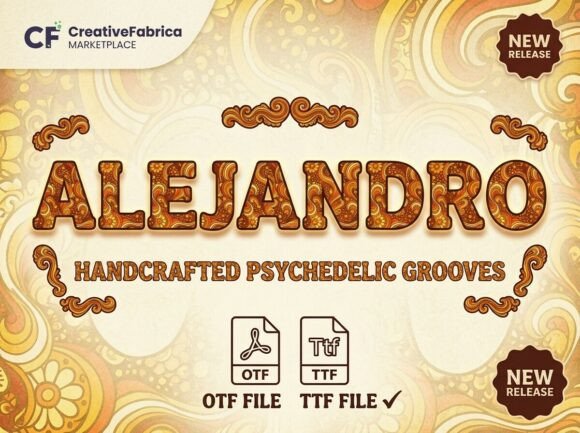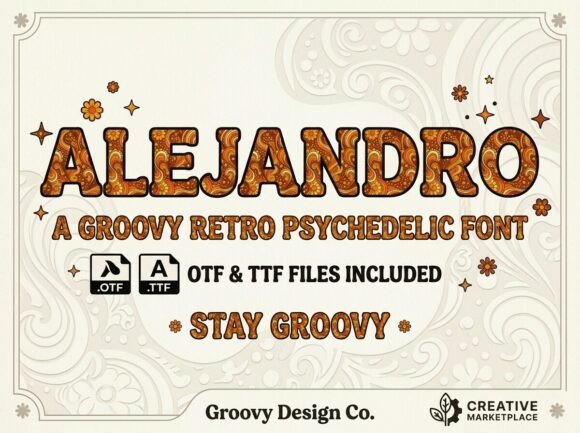
Introducing Alejandro: The Ultimate Retro Psychedelic Font
Step back into the vibrant energy of the late 1960s and 70s with Alejandro, a groovy retro psychedelic font from Groovy Design Co. This high-impact display typeface is the perfect choice for designers and crafters looking to add a touch of nostalgia and bohemian flair to their projects.
The Inspiration Behind Alejandro
Alejandro is inspired by the iconic designs of the 1960s and 70s, a time when psychedelic art and counterculture movements were at their peak. The font’s creator, Groovy Design Co., drew inspiration from the era’s vibrant colors, swirling patterns, and free-spirited attitude. The result is a font that embodies the “boho-maximalist” soul of the era, with bold, rounded letterforms and an intricate “lava-lamp” pattern of swirling floral motifs and paisley-inspired curves.
Design Features of Alejandro
Alejandro’s design features thick, rounded letterforms that are perfect for creating eye-catching headlines and titles. The font’s bold silhouette is filled with a mesmerizing pattern of swirling curves and floral motifs, giving it a truly unique and psychedelic look. The intricate details of the font are sure to captivate audiences and add a touch of nostalgia to any design.
Use Cases for Alejandro
Alejandro is an incredibly versatile font that can be used in a variety of design projects. Here are some of the top use cases for this groovy retro psychedelic font:
- Independent Music Festival Posters: Alejandro is the perfect choice for creating eye-catching posters for music festivals and concerts. Its bold, psychedelic design is sure to grab attention and evoke the free-spirited vibe of the 1960s and 70s.
- Vintage-Themed Apparel Branding: Add a touch of nostalgia to your apparel branding with Alejandro. This font is perfect for creating vintage-themed labels and logos that will make your products stand out.
- Artisanal Craft Labels: Alejandro’s bohemian vibe makes it a great choice for artisanal craft labels and packaging. Use it to add a touch of personality and whimsy to your products.
- High-Energy Retro-Revival Social Media Headers: Create eye-catching social media headers with Alejandro’s bold, psychedelic design. This font is sure to grab attention and add a touch of nostalgia to your social media presence.
Why Choose Alejandro?
So why choose Alejandro over other fonts? Here are just a few reasons why this groovy retro psychedelic font stands out:
- Unique Design: Alejandro’s intricate “lava-lamp” pattern and swirling floral motifs make it a truly unique font that will set your designs apart.
- High-Impact: Alejandro’s bold, rounded letterforms are perfect for creating eye-catching headlines and titles that will grab attention.
- Versatile: This font can be used in a variety of design projects, from posters and labels to social media headers and apparel branding.
Alejandro is a groovy retro psychedelic font that is sure to add a touch of nostalgia and bohemian flair to your designs. With its bold, rounded letterforms and intricate “lava-lamp” pattern, this font is perfect for designers and crafters looking to create eye-catching posters, labels, and social media headers. Whether you’re looking to evoke the vibe of the 1960s and 70s or simply want to add some personality to your designs, Alejandro is the premier choice.